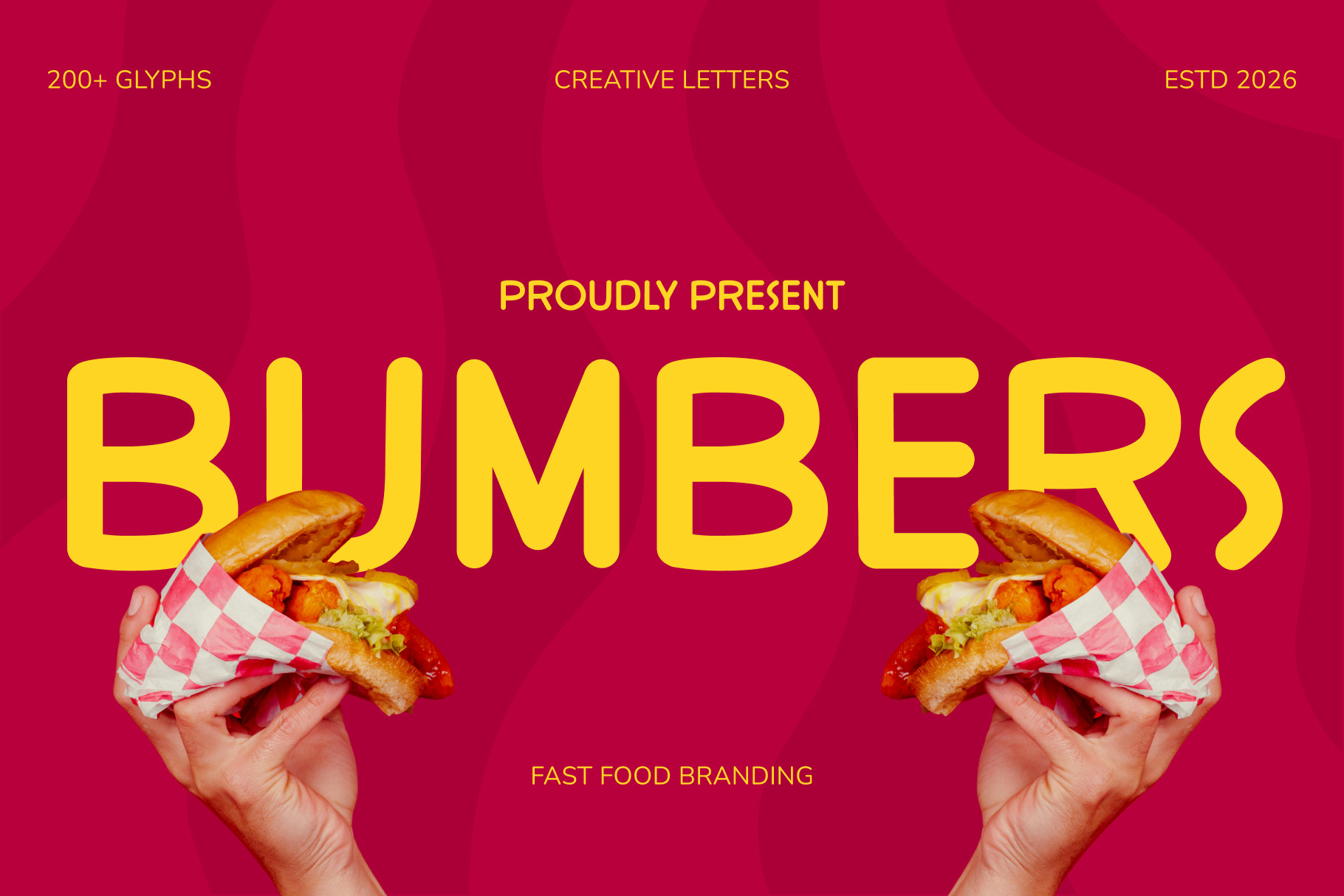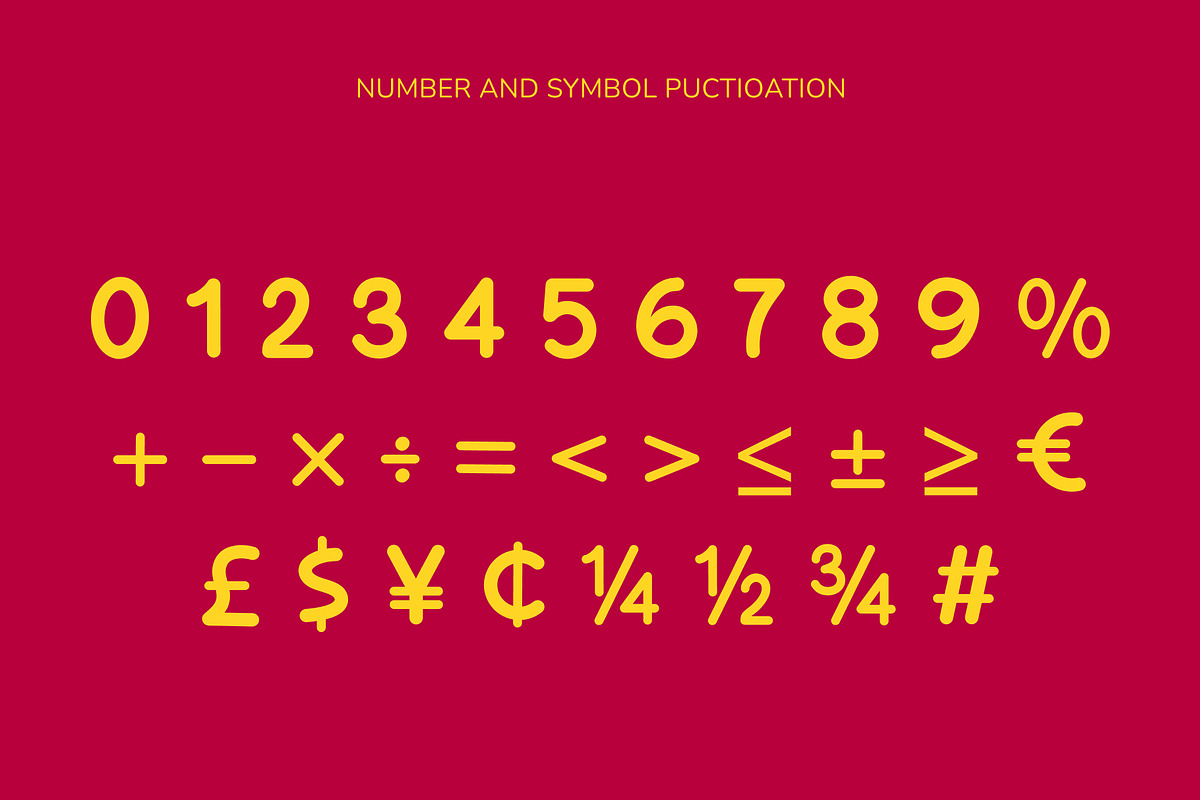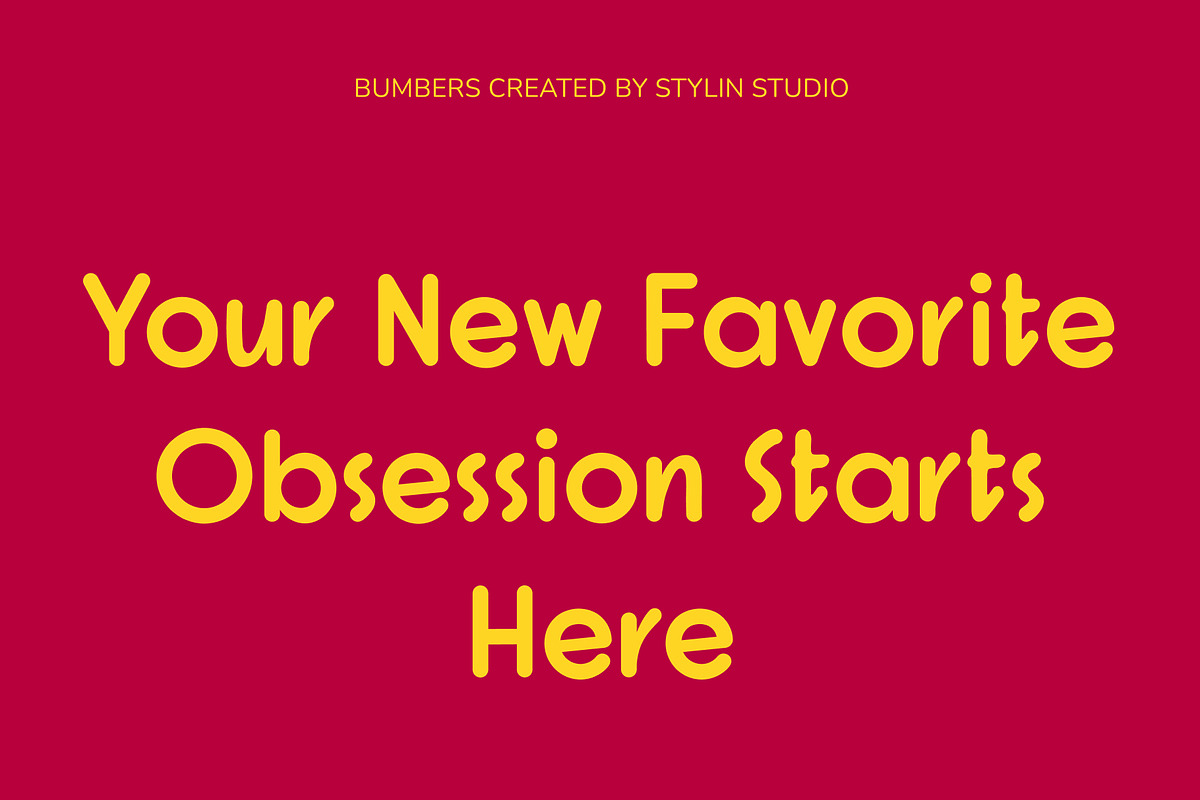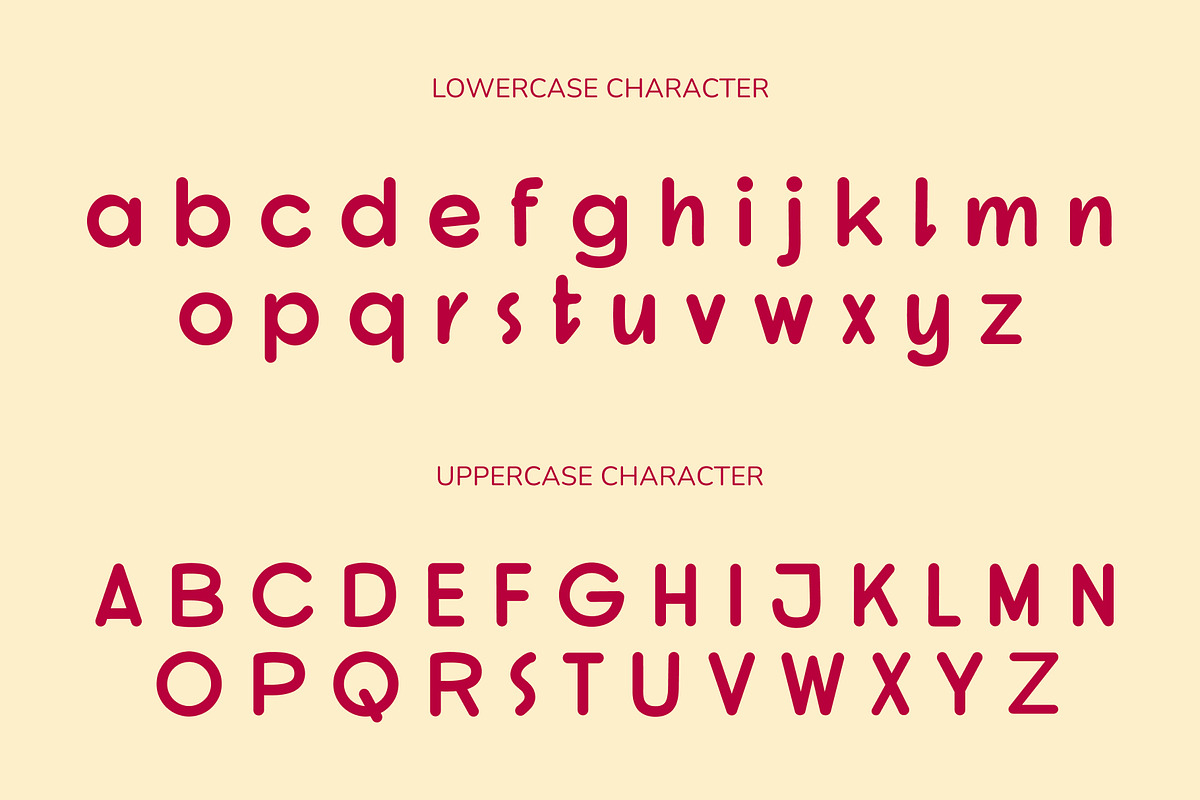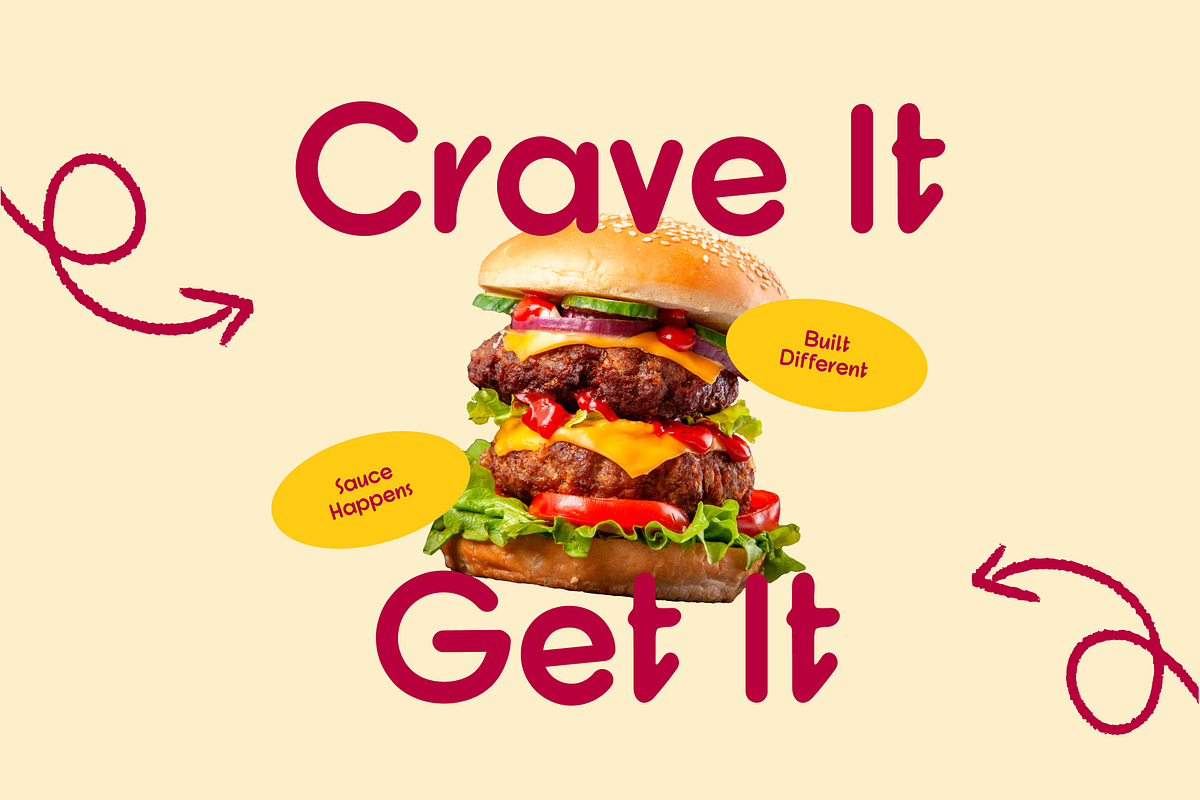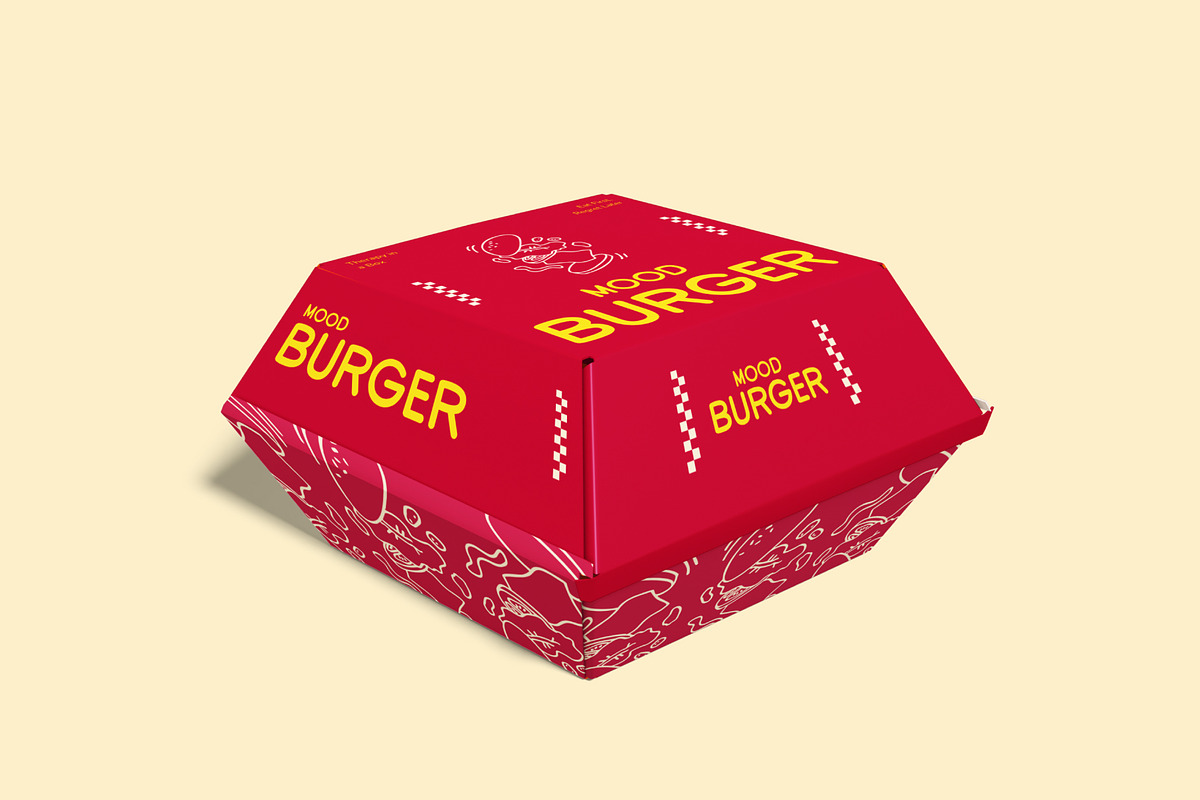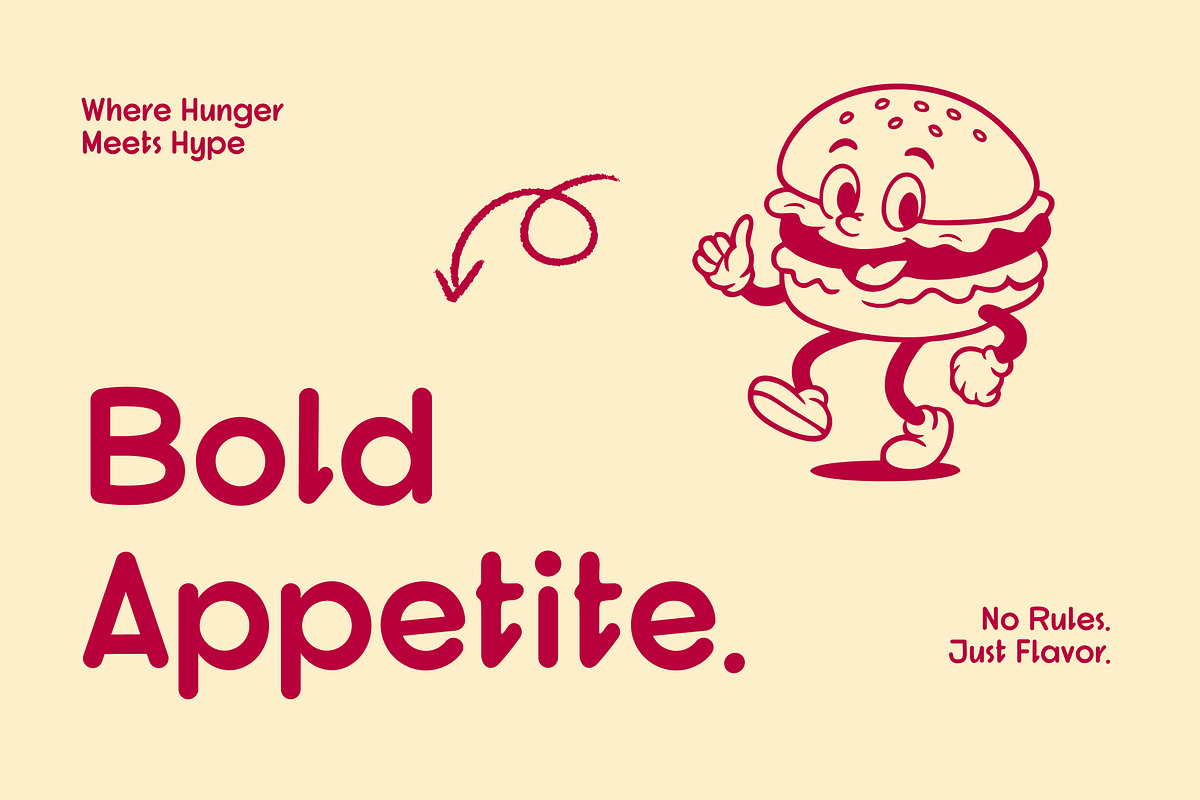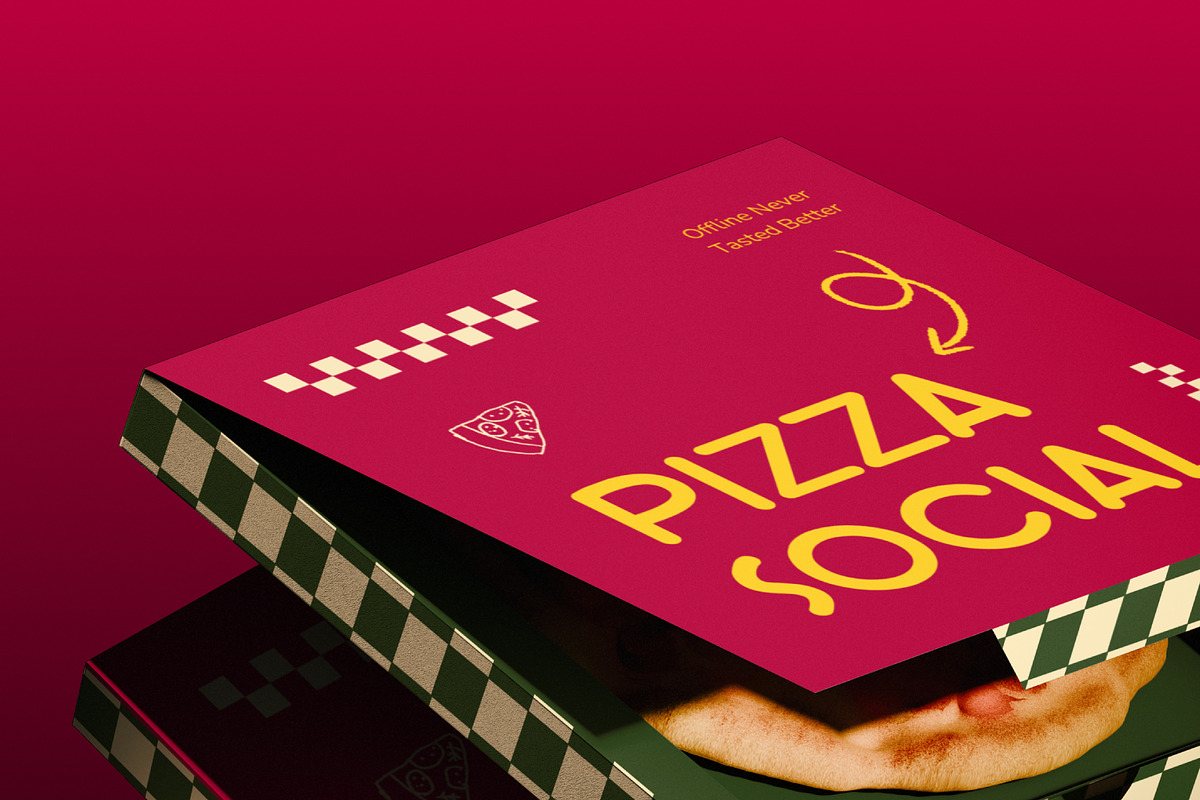
Fast Food – Bumbers Font
Fast Food – Bumbers Font is a bold display typeface designed to capture the energy, flavor, and excitement of modern food branding. With its strong letterforms, playful character, and eye-catching presence, Bumbers delivers a fresh and appetizing look that instantly grabs attention. Perfect for projects that need a fun, friendly, and memorable visual identity.
Full Character Set: Uppercase, lowercase, numbers, symbols, and punctuation
From restaurant logos to food packaging, Bumbers brings a vibrant and energetic personality to every design. Its bold readability and playful style make it ideal for fast food branding, menu designs, food truck graphics, promotional materials, social media content, and advertising campaigns.